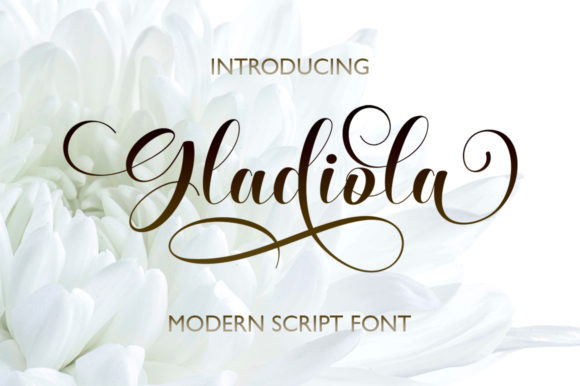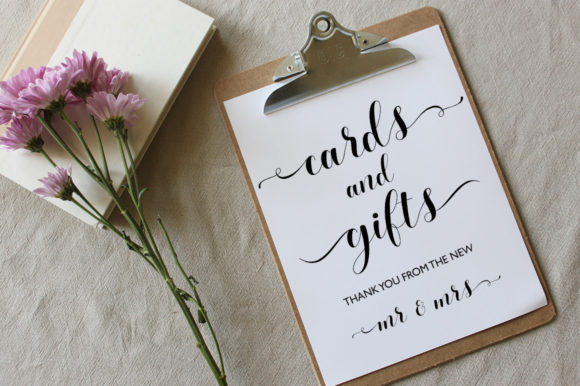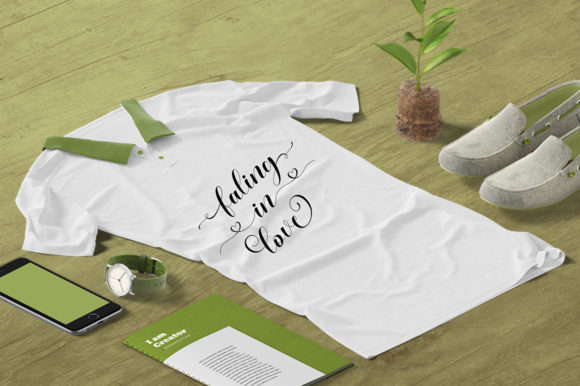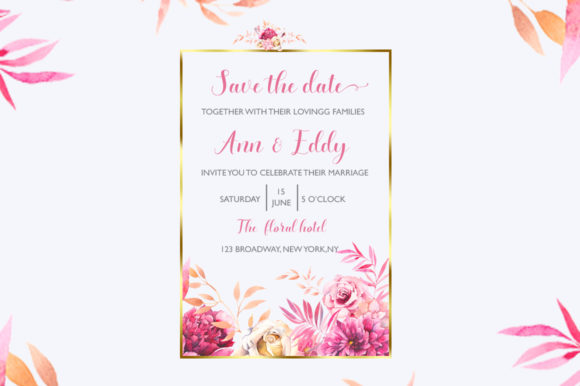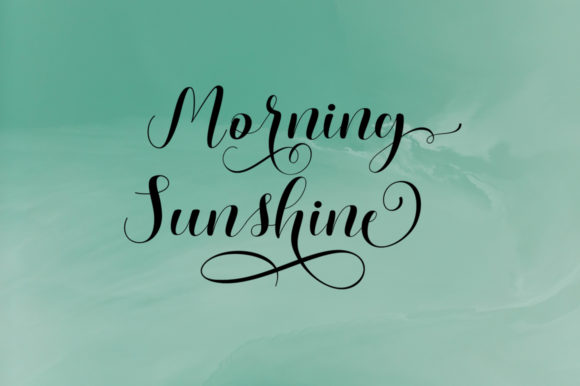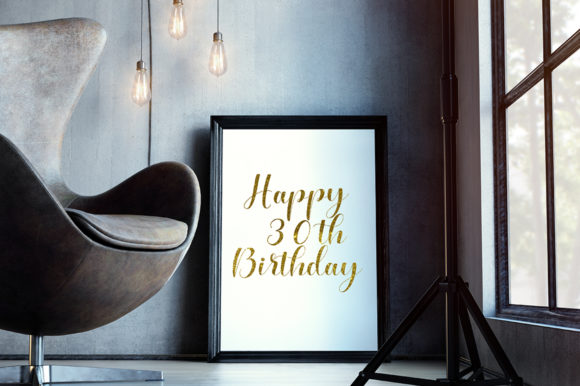
Gladiola Font
About Gladiola Font
Gladiola: Embrace the Elegance and Flow of a Handwritten Font
Introducing Gladiola, a font that exudes elegance and grace with its flowing handwritten style. With its stunning alternates and smooth lines, this font is designed to captivate hearts and enhance your designs with a touch of sophistication. Whether you’re crafting exquisite wedding invitations, expressing gratitude through thank you cards, designing inspiring quotes, creating captivating logos, or engaging in any other project that requires a handwritten touch—Gladiola is the perfect choice, ready to make your designs shine with its incredibly elegant and flowing charm.
The allure of Gladiola lies in its captivating elegance. Each letter is meticulously crafted to showcase a harmonious dance of grace and beauty.
Designing with Gladiola is a delightful experience. Its smooth lines and varying baseline add a sense of artistry and refinement to your designs, making them stand out with effortless allure.
Fall in love with the versatility of Gladiola. Whether you’re designing for joyous celebrations or conveying heartfelt sentiments, this font adapts seamlessly to complement your creative vision.
Expressing emotions becomes a refined art with Gladiola. Its stunning alternates and flowing nature allow you to convey feelings with ease, making your words resonate with sincerity and elegance.
Gorgeous designs come to life with Gladiola’s captivating style. Whether you’re crafting wedding invitations that exude romance or designing sophisticated logos that leave a lasting impression, this font adds a touch of beauty that captivates the eye.
In conclusion, Gladiola is more than just a font; it’s an incredibly elegant masterpiece designed to captivate hearts. Embrace its refined allure, and let it become the centerpiece of your most cherished projects. Whether you’re celebrating love, expressing gratitude, or engaging in any creative endeavor, Gladiola will be your trusted companion, adding a touch of sophistication and beauty. Allow this font to unlock the full potential of your creativity, and watch as your designs come alive with the captivating and flowing spirit of Gladiola. Fall in love with its timeless elegance, and let it be the guiding light that leads you to create truly spectacular designs that leave a lasting impact on all who behold them.